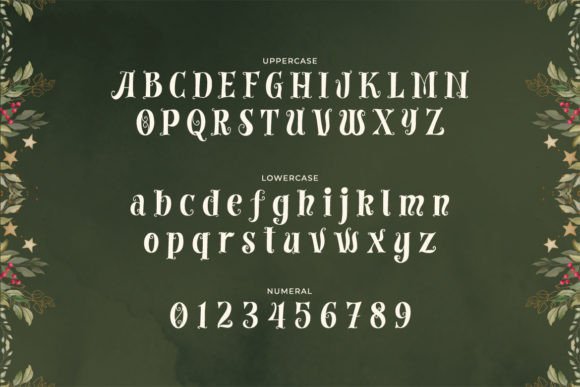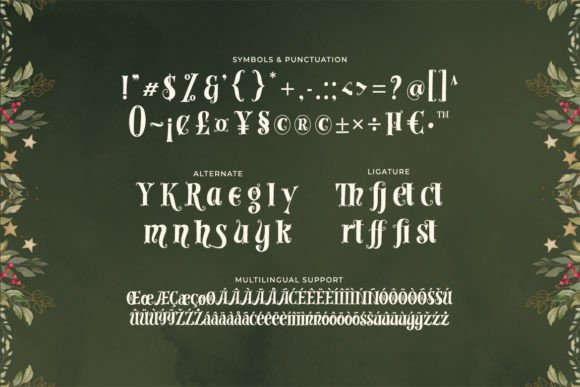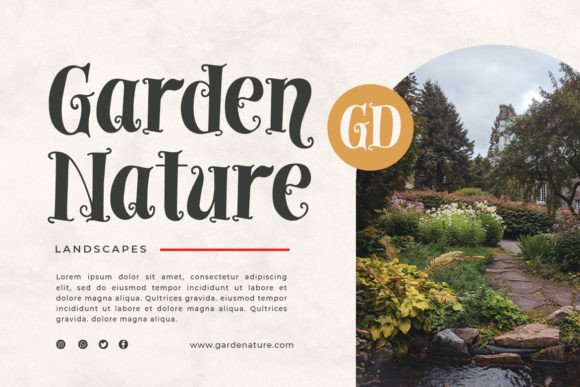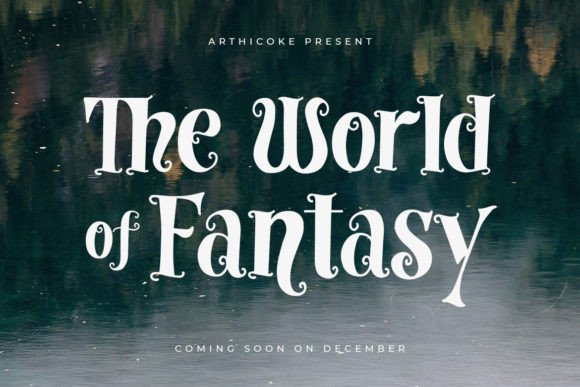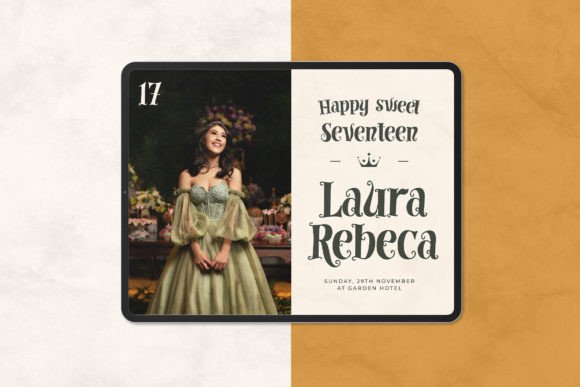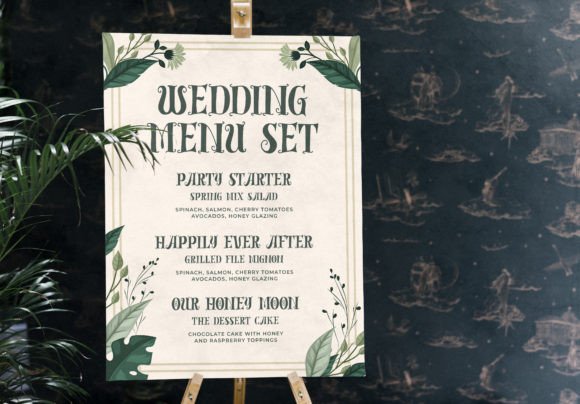
The Perfect Match for Your Designs
Have you ever stared at a blank page, trying to bring a concept to life, only to be held back by the perfect font? You know, that elusive one that makes your design pop without overpowering the message. I’ve been there, and I’m here to introduce you to the Arthicoke Font – a game-changer for designers of all levels.
This fresh, natural typeface is designed to complement most of your designs, effortlessly blending in to let your content shine. The Arthicoke Font is perfect for those who crave a classic yet modern aesthetic, making it a valuable addition to any designer’s toolkit.
Whether you’re a seasoned pro or just starting out, the Arthicoke Font is sure to become your go-to choice for a wide range of projects. Its versatility and timeless appeal make it an essential asset for any designer looking to elevate their work.
Arthicoke Font Key Features
- Font Family: Arthicoke Font offers a unique blend of modern and classic elements, making it suitable for various design projects.
- Font Size: 16,000+ glyphs, including a wide range of characters, punctuation, and symbols.
- Unique Characteristics: Features a distinctive, hand-drawn aesthetic with subtle texture and imperfections, giving it a unique, human touch.
- Language Support: Supports multiple languages, including Latin, Cyrillic, and Greek scripts, making it a versatile choice for global designs.
Arthicoke Font Review
Overall, I think the Arthicoke Font has some great qualities that make it a solid choice for certain projects. ✨ Here are a few things that I appreciate:
- Unique aesthetic: The Arthicoke Font has a distinctive look that sets it apart from more traditional fonts. It’s perfect for designers who want to add some personality to their work.
- Good legibility: Despite its unusual design, the font is still easy to read, even at smaller font sizes.
- Wide language support: The Arthicoke Font supports a wide range of languages, making it a great choice for international projects.
However, there are also some limitations to consider. ⚠️ Here are a few things that might give you pause:
- Limited versatility: While the Arthicoke Font is great for certain projects, it might not be the best choice for more traditional or conservative designs.
- Not ideal for body text: Due to its unique design, the Arthicoke Font is better suited for headings and titles rather than body text.
Overall, I think the Arthicoke Font is a great addition to any designer’s toolkit. It’s perfect for projects that require a bit of flair and personality. Just be sure to use it judiciously and in the right context.
Tips for Getting the Most Out of Arthicoke Font
Use Arthicoke Font for titles, headings, and body text to add a touch of elegance and sophistication to your designs.
Pair Arthicoke Font with a sans-serif font for a clean and modern look.
Experiment with different font sizes and colors to create visual interest and emphasis.
Arthicoke Font is perfect for:
Brand logos and marketing materials
Editorial and publishing design
Photography captions and quotes